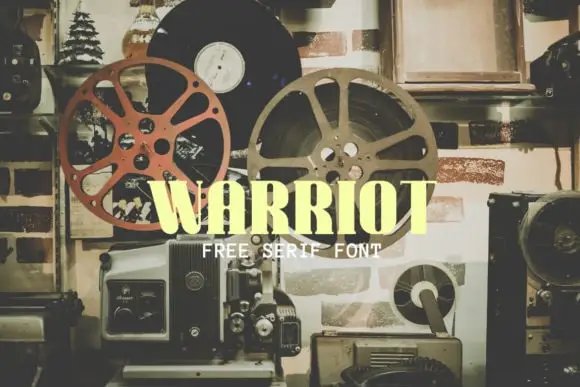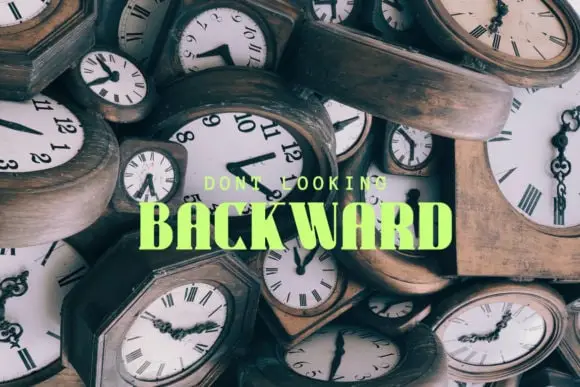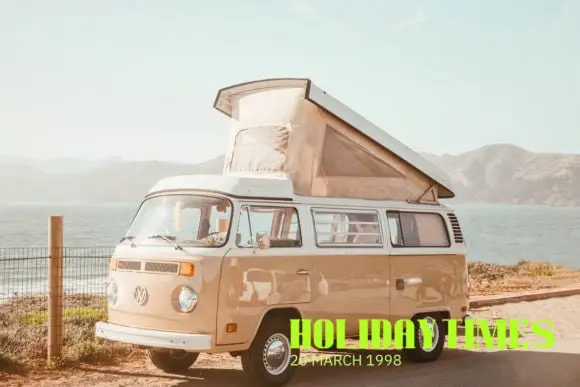
Warriot Font
The Warriot Font is a bold and striking typeface designed to make a statement. With its unique character shapes and strong presence, this font is perfect for branding, logos, and eye-catching headlines.
• Stylish and modern design
Ideal for both web and print applications, the Warriot Font can be used in advertising, product packaging, and social media graphics to create a memorable visual identity.